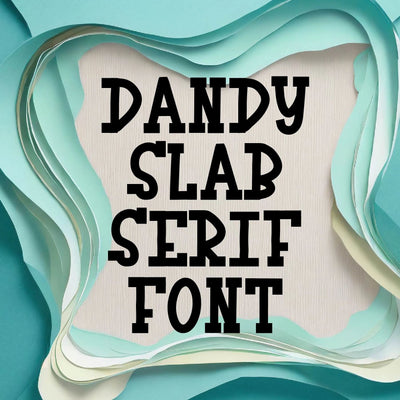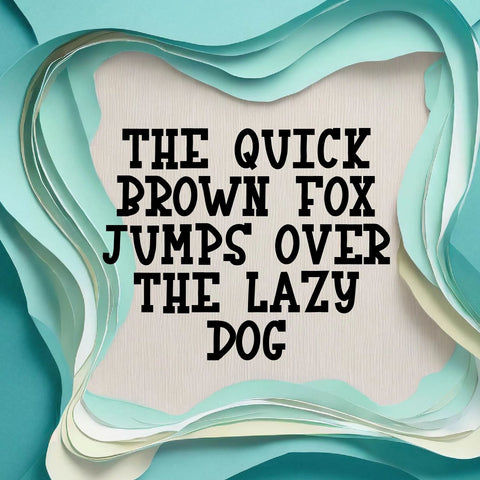
This font will be perfect for all your Valentine Craft projects! Use it to make custom shirts, keychains, valentines, tags, bags, and whatever else you can think of!